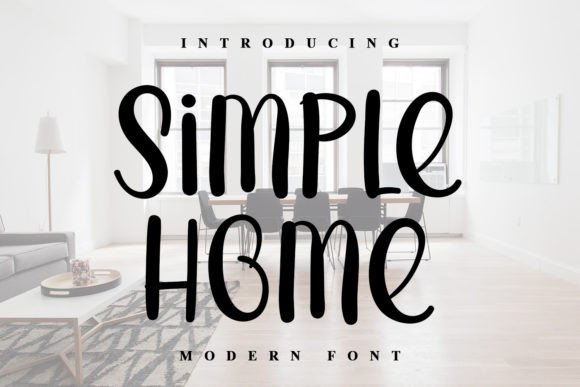
Introducing the Simple Home Font, a breathtaking script font family that exudes elegance and charm. Step into a world of cozy comfort and heartwarming aesthetics with this enchanting creation by ABBAsalam. Simple Home isn’t just a font; it’s an experience that transports you to a place of peace and tranquility.
Unleash your creativity with this versatile font, perfect for capturing the essence of winter in your designs. Whether it’s a YouTube banner, a captivating logo, or an unforgettable wedding invitation, Simple Home Font adds a touch of magic to every project. Its flowing curves and delicate strokes evoke a sense of nostalgia and warmth, making it an ideal choice for creating designs that resonate with your audience.
Envision your designs taking center stage, adorned with the graceful lines of Simple Home Font. Imagine your Youtube banner standing out from the crowd, captivating viewers with its inviting appeal. Each letter, meticulously crafted, dances across the screen, drawing attention and leaving a lasting impression. Let your cover logos radiate sophistication and charm, as Simple Home Font transforms them into works of art. Your mockups will come alive, imbued with a sense of authenticity and warmth that speaks to your audience's emotions.
With Simple Home Font, your wedding invitations will transcend the ordinary, becoming cherished keepsakes that reflect the love and joy of your special day. Create ID cards that exude professionalism and elegance, leaving a lasting impression on clients and colleagues alike. Design flyers that capture attention and compel action, as Simple Home Font's allure draws people in and sparks their curiosity.
Simple Home Font isn't just a font; it's a gateway to a world of creative possibilities. Let your imagination soar as you explore new horizons of design, crafting masterpieces that touch hearts and leave an indelible mark. Embrace the beauty of winter and the warmth of home with Simple Home Font, and watch your designs blossom into works of art.